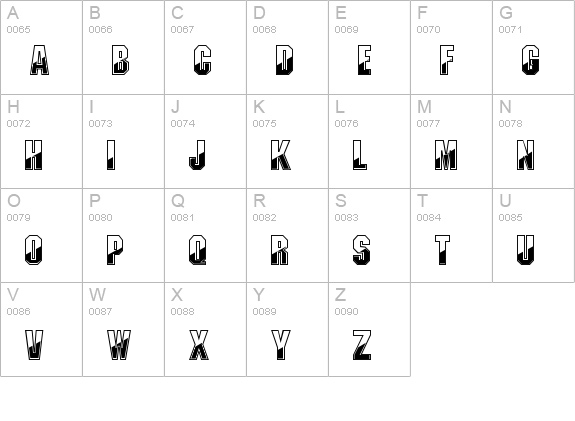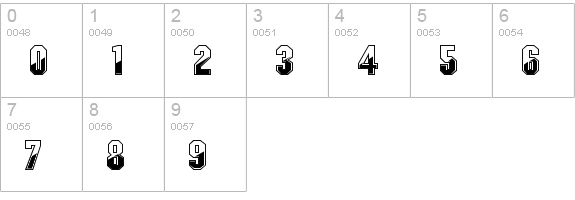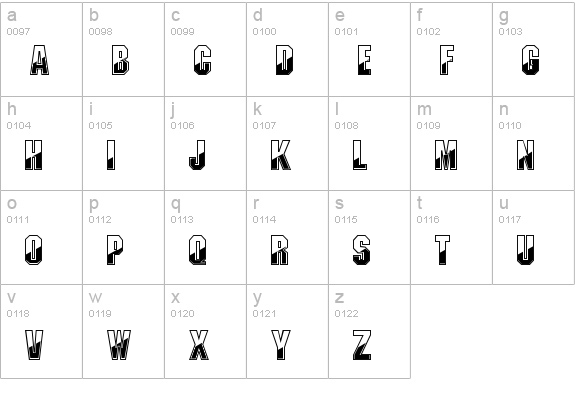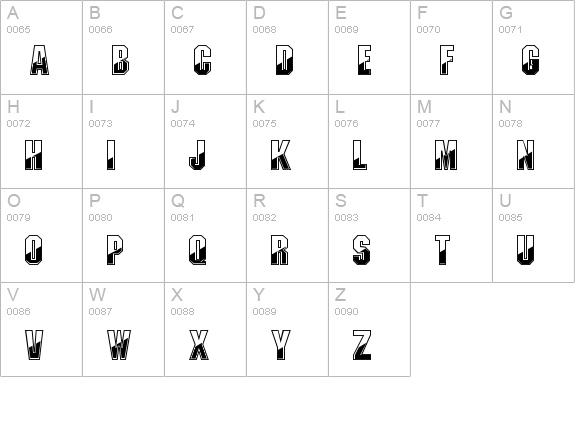
Gunmetal Regular Font Details
Gunmetal Regular is the standard, neutral variant in the Gunmetal typeface family \xE2\x80\x94 well suited to general body text, paragraphs, and standard typographic work.
Gunmetal Regular is a modern and sleek typeface that exudes a sense of strength and sophistication. Its sharp edges and bold strokes make it perfect for creating impactful designs that demand attention. This versatile font is ideal for a wide range of projects, from branding to editorial design. What sets Gunmetal Regular apart is not only its striking appearance but also the fact that it is available for free download at FontsMarket.com. This means that you can easily access and use this high-quality font without any cost, making it a valuable addition to your design arsenal. Whether you're looking to add a touch of edge to your next project or simply want to experiment with a new typeface, Gunmetal Regular is a fantastic choice. Download it today and unleash your creativity with this dynamic and stylish font.